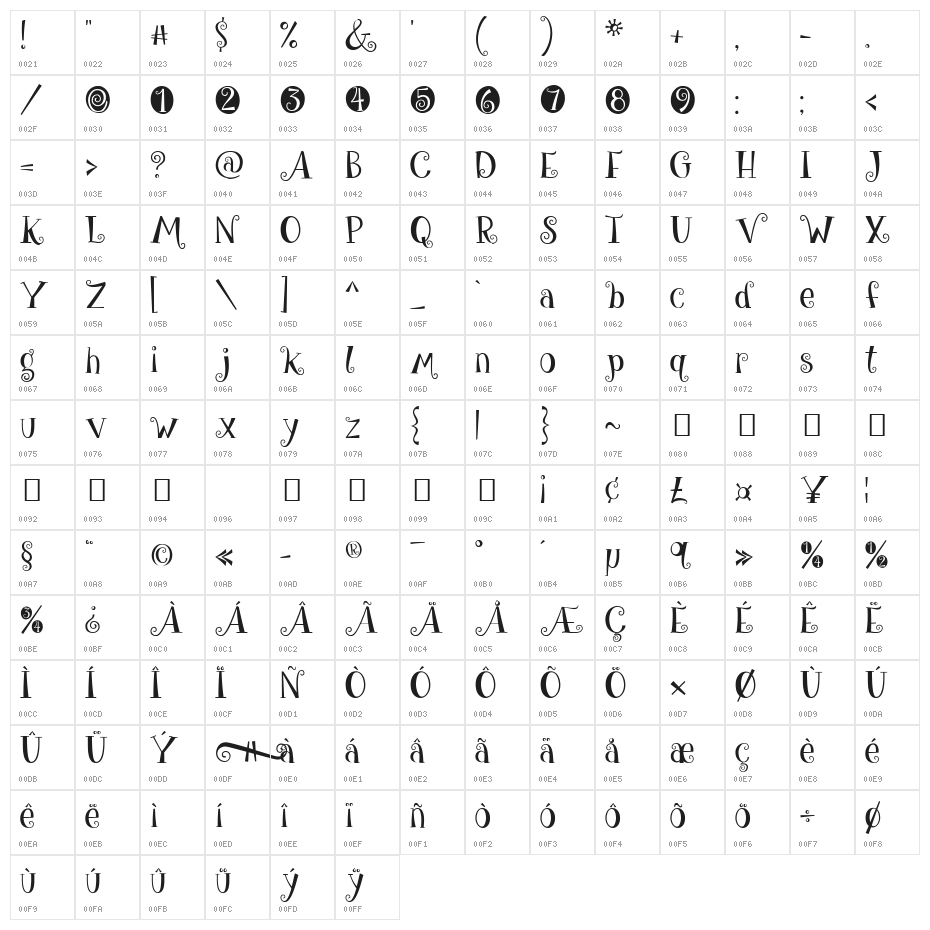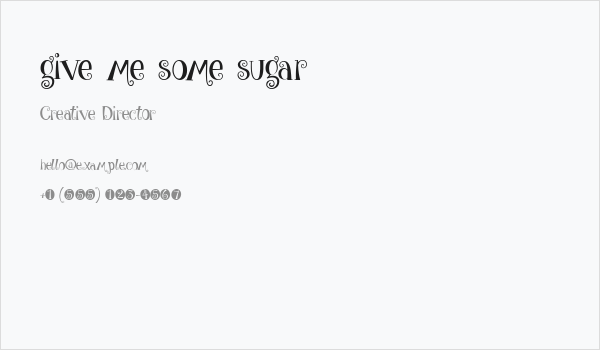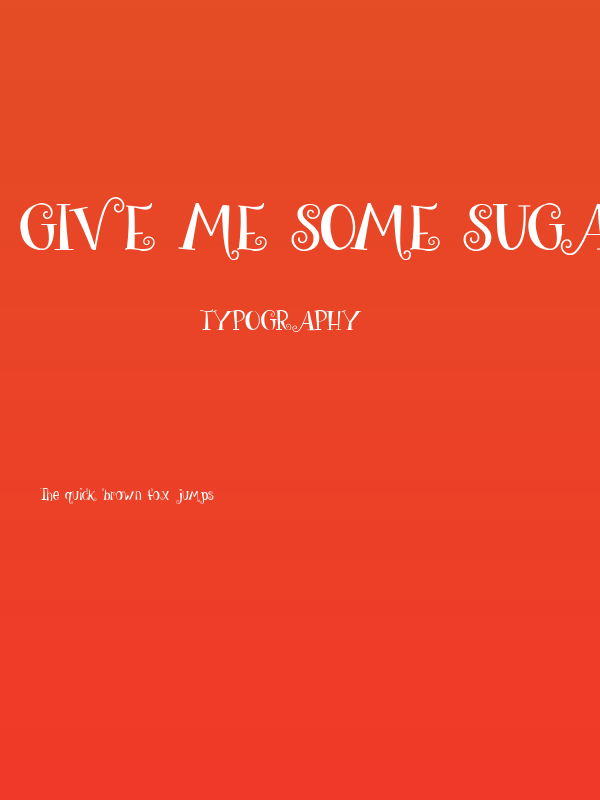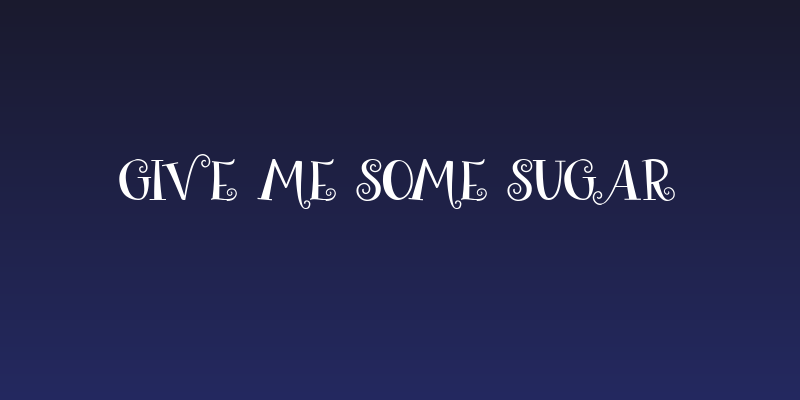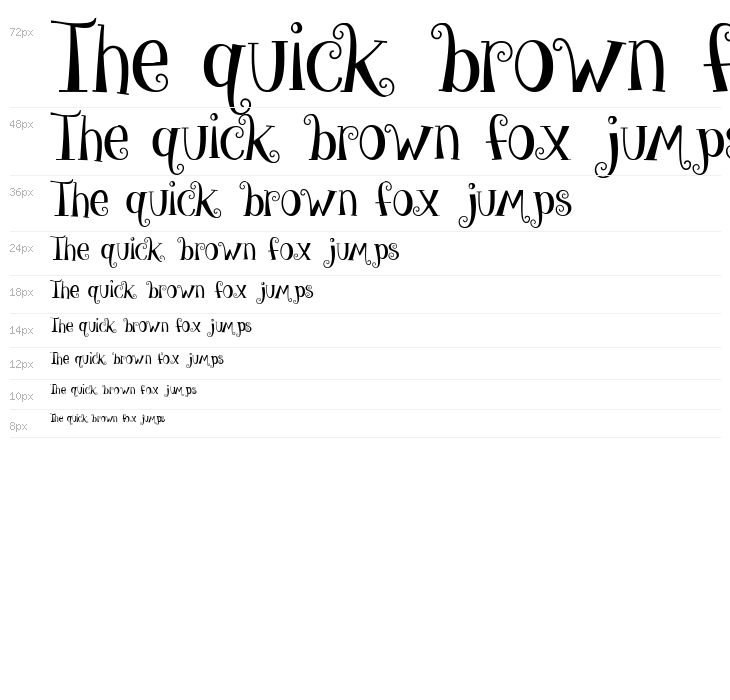
give me some sugar Font
give me some sugar Description
This whimsical and playful font features a unique blend of curvy and straight lines, creating a lively and energetic appearance. The uppercase letters are adorned with charming swirls and curls, adding a touch of elegance and fun. The lowercase letters maintain a consistent style, with some characters featuring delightful loops and embellishments. The numbers are enclosed in circular backgrounds, enhancing their visibility and adding a decorative flair. Special characters are creatively designed, maintaining the overall playful theme. This font is perfect for projects that require a touch of whimsy and creativity.
| Proposed Projects | Ideal for children's books, greeting cards, playful branding, and creative invitations. |